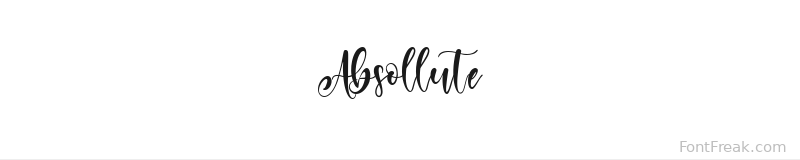
Absollute
About Absollute
Absollute by Kong Font is a stunning display typeface that captures attention with its elegant, handwritten style. Released in 2021, this font is characterized by its fluid strokes and organic forms, making it a perfect choice for a variety of creative applications. The stroke weight varies subtly throughout the letters, providing a sense of movement and dynamism, while the generous spacing between characters enhances readability. The decorative elements of Absollute, such as its playful loops and swirls, add a unique charm that elevates any design project.
This typeface is particularly well-suited for wedding invitations, where its romantic flair can set the perfect tone for the occasion. Additionally, it shines in branding materials, especially for boutique shops or artisan products, as it conveys a personal touch that resonates with customers. Movie posters also benefit from Absollute's striking presence, capturing the essence of the film while drawing the eye of passersby. Restaurant menus designed with this font can evoke a warm and inviting atmosphere, encouraging diners to explore the offerings. Content creators looking to enhance their visual storytelling will find Absollute a valuable asset, adding an artistic flair to social media graphics and promotional materials.
Targeted at graphic designers, small business owners, and content creators, Absollute provides an accessible yet sophisticated option for those seeking to make a lasting impression. With its freeware license, users can enjoy the benefits of this stylish typeface without any cost. The Absollute font free download is a fantastic opportunity to incorporate a fresh, modern aesthetic into your design toolkit. What sets Absollute apart is its balance of elegance and versatility, making it a standout choice for anyone looking to infuse their work with personality and style.